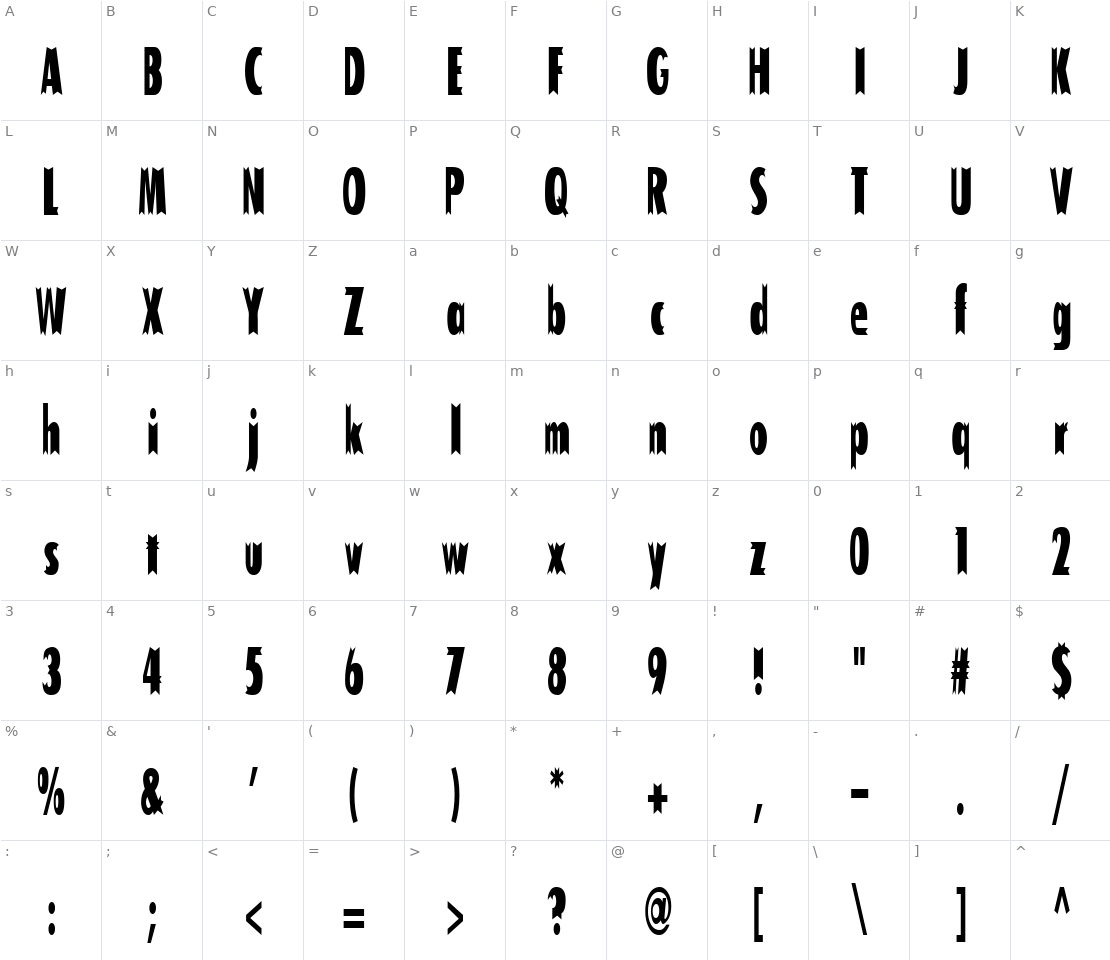
Tofu
Tofu is a heavy, compressed display face from Ray Larabie where the letterforms are packed so tightly together they feel almost suffocating. The bold, narrow characters carry serious visual density, giving headlines and poster text a dark, imposing presence. It's the kind of typeface that fills every available pixel, built for impact when you need type that physically dominates the space.